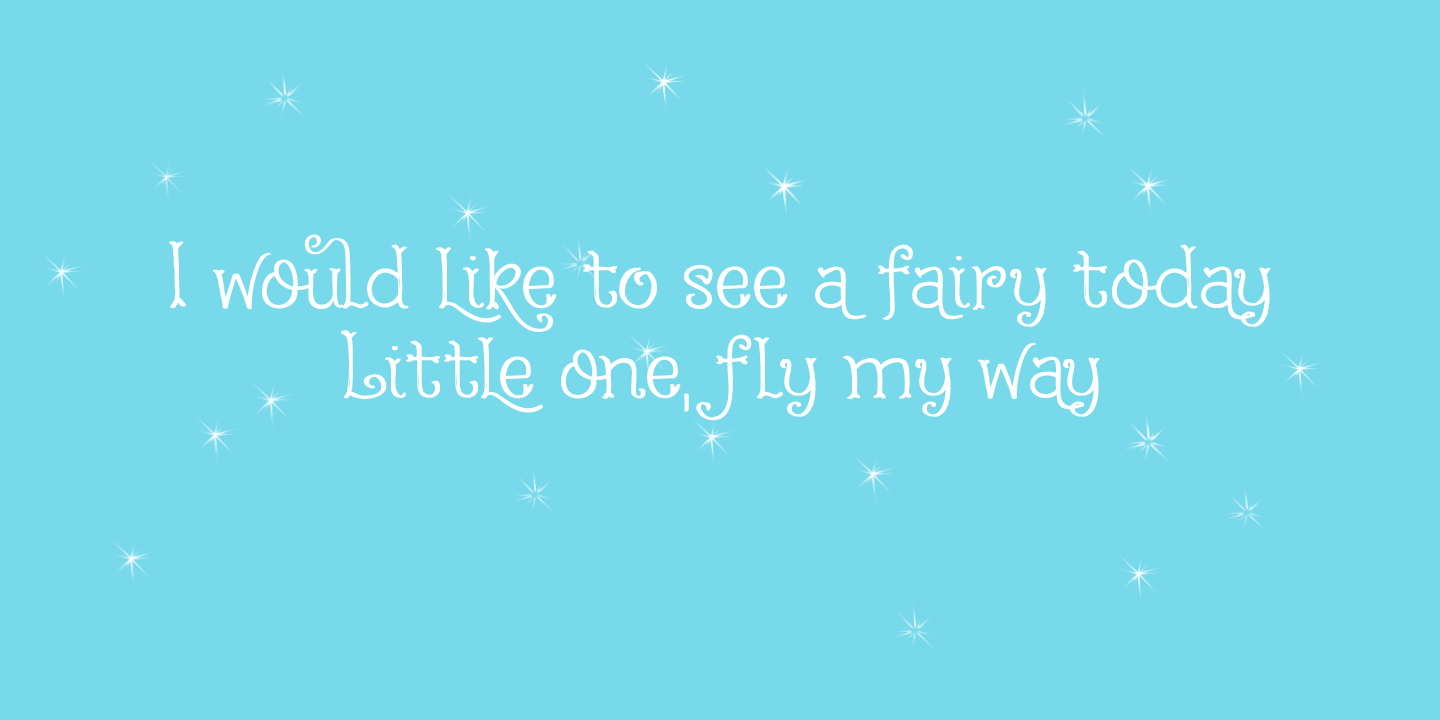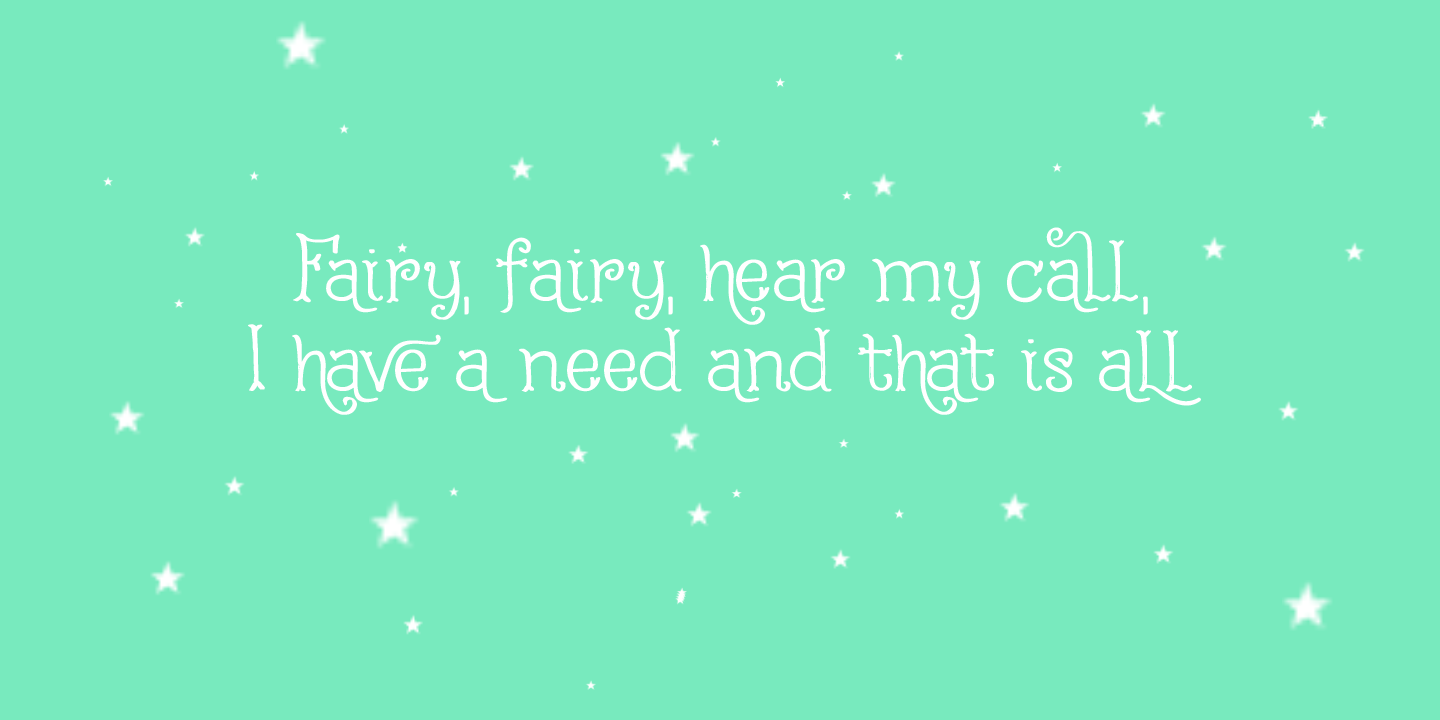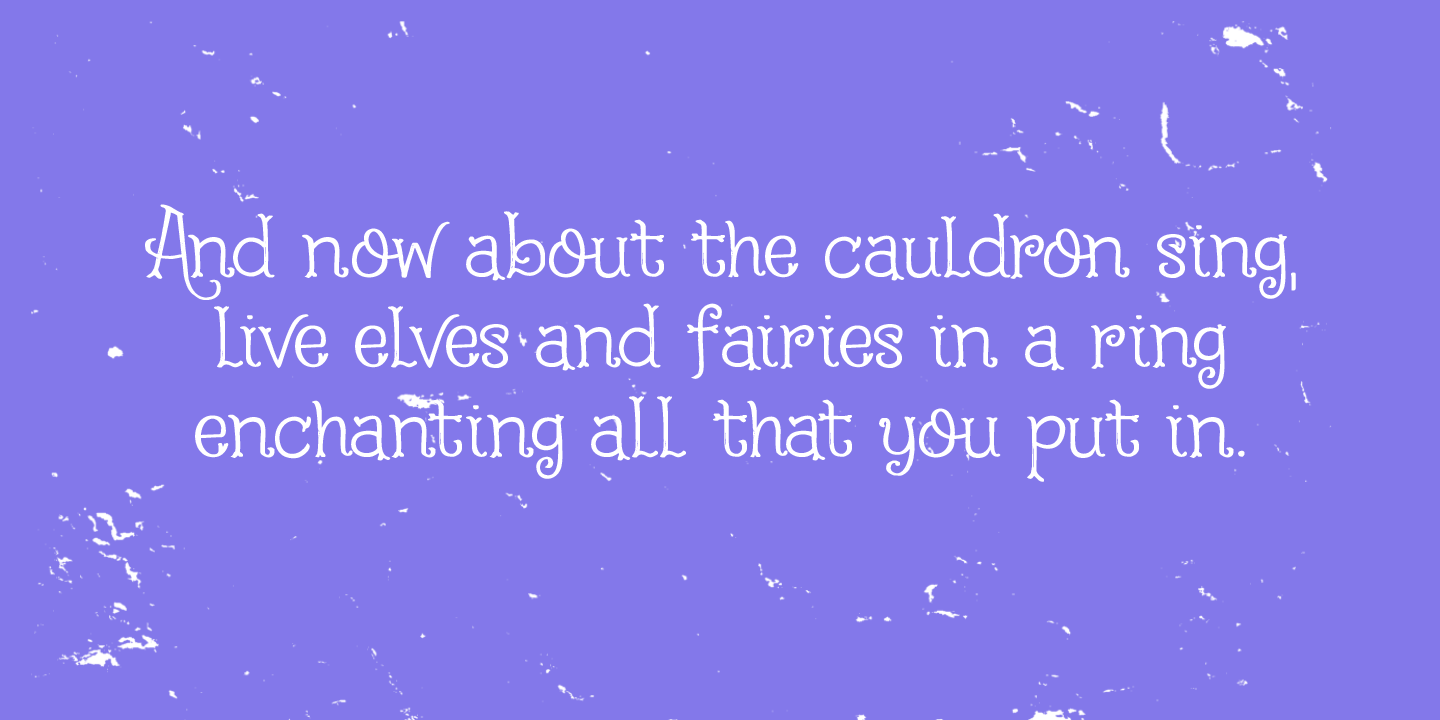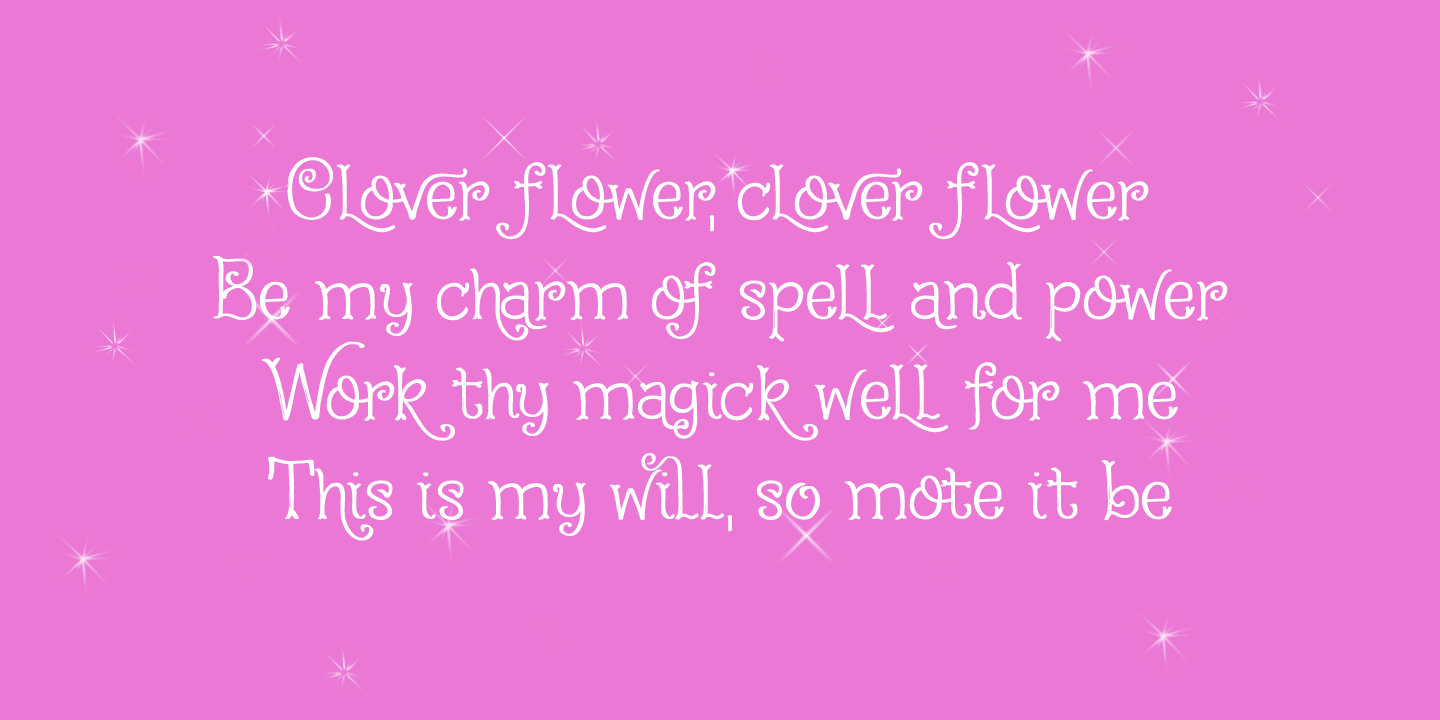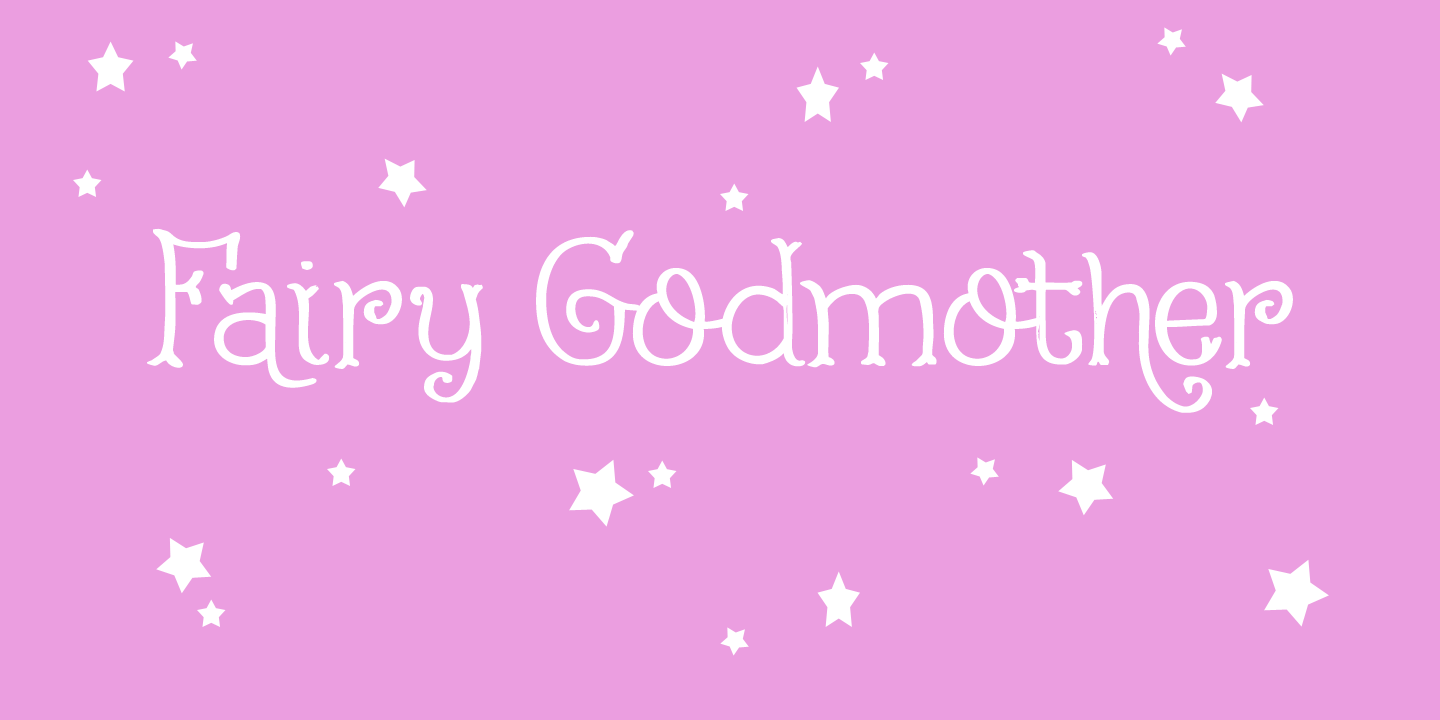
Fairy Godmother
About Fairy Godmother
I like ?magical? fonts and it\’s been a while since I created one, so here is Fairy Godmother. Hand made, cute and curly and full of magic! Fairy Godmother comes with a whole bunch of swashes!